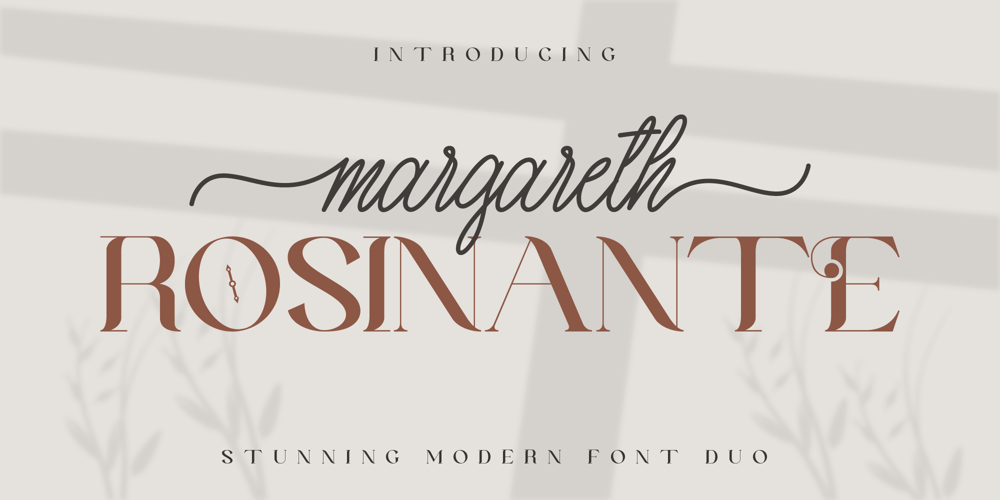
Margareth Rosinante Font Family was designed by Irfan Hidayat and published by Creative17studio. Margareth Rosinante contains 3 styles and family package options. Introducing”Margareth Rosinante” is a modern serif font family. With luxury and sophistication that are consistent with one another. Margareth Rosinante is designed for an epic comparison between serif and script styles. The stark contrast between the Margaret Rosinante serif and the script makes this font family always suitable to be paired with in any design.Features:- Two different font types (serif and script style)-Standard basic characters-Multilingual support-Numeral and punctuation-Many ligatures (serif)-Beginning and ending swashes (script)Any questions? Jus ask.Free updates,